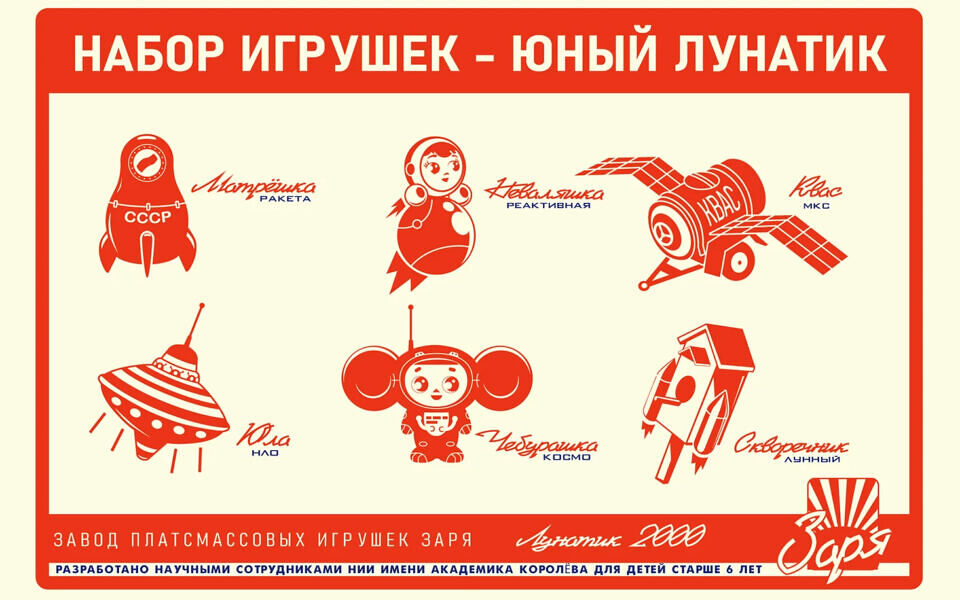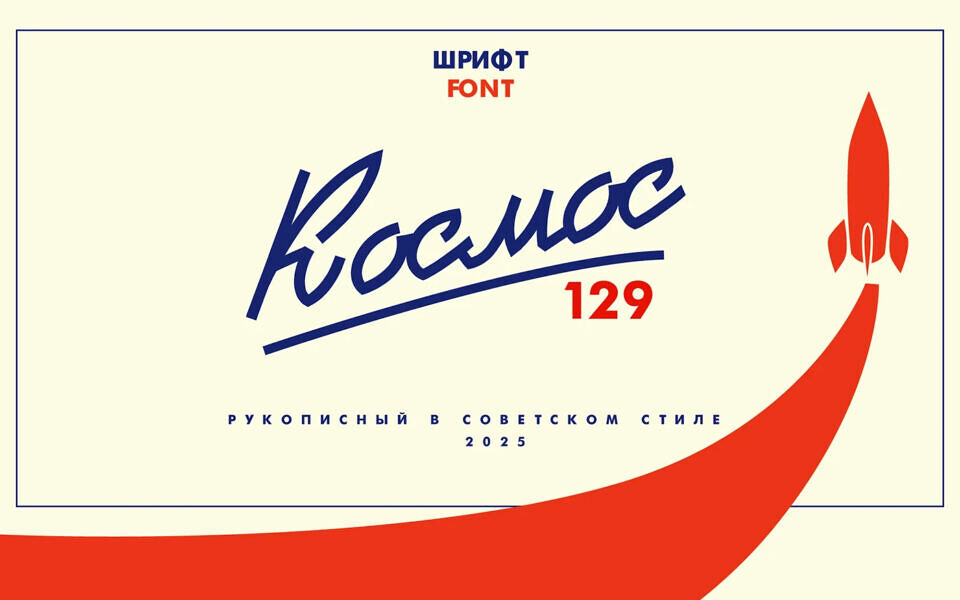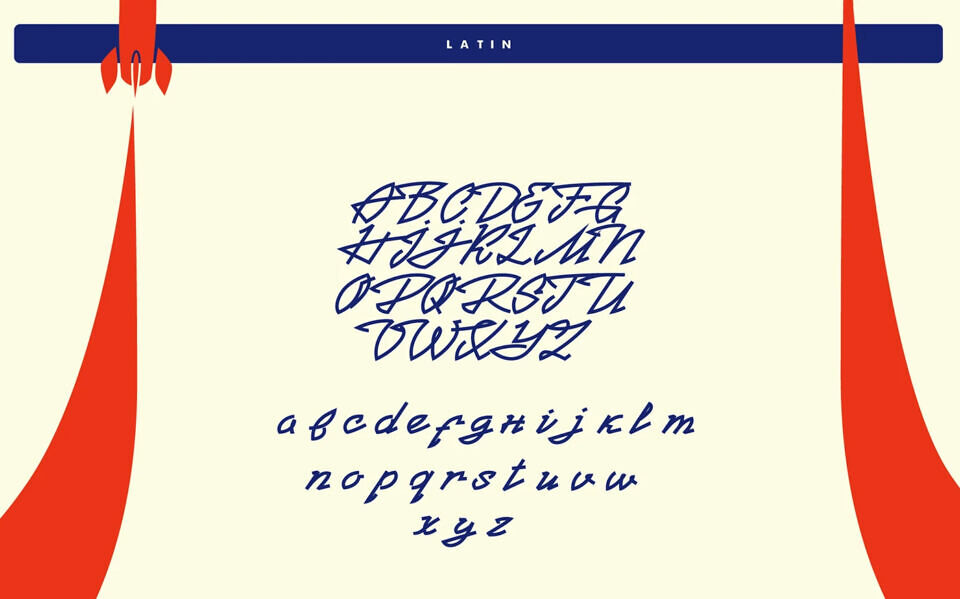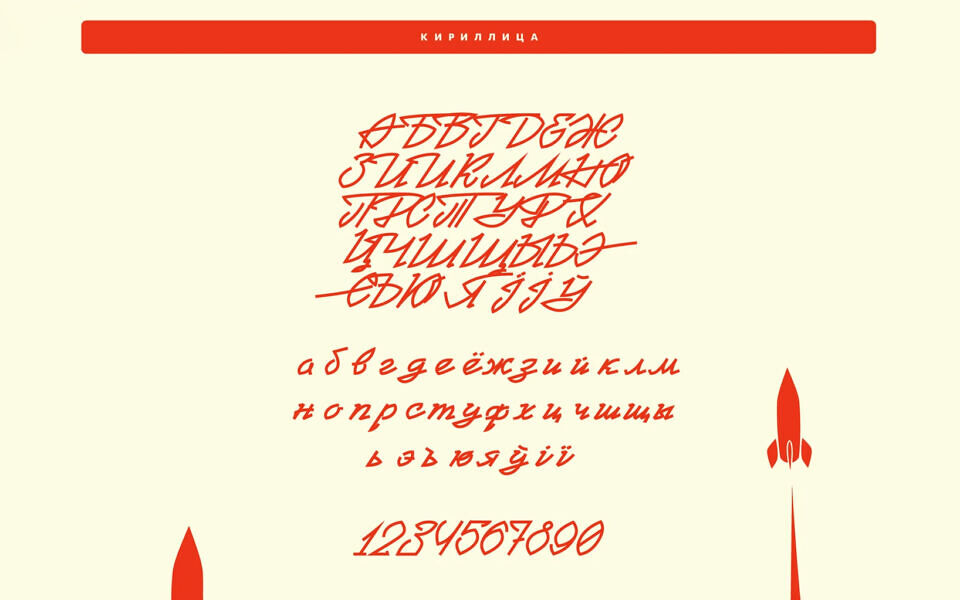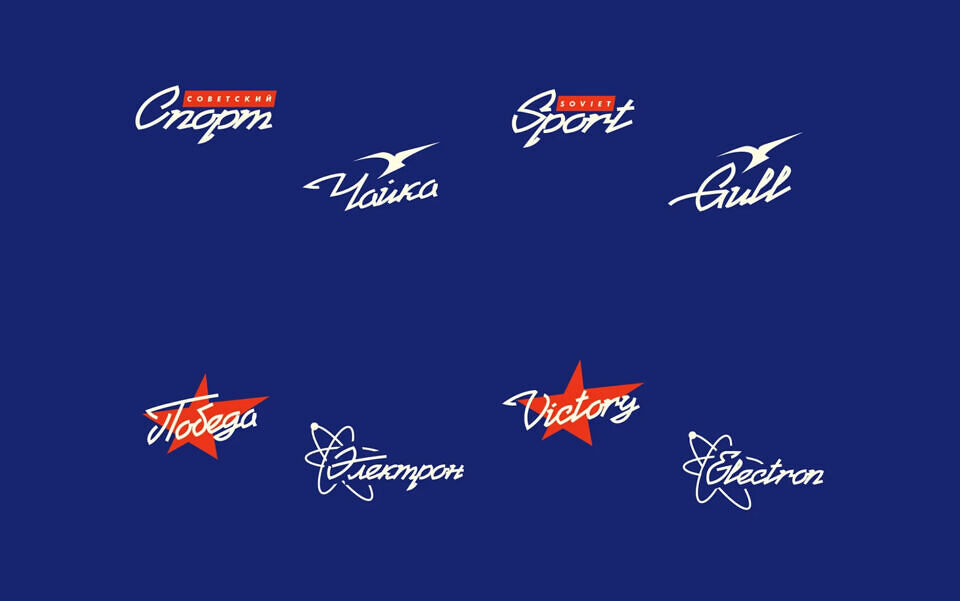
Kosmos 129 Font
Kosmos 129 is a handwritten font inspired by the aesthetics of the USSR from the 1960s to the 1980s. It was created by Vadim Bashlakov and supports Cyrillic and Latin alphabets, numbers, and special characters.
This versatile font is free for personal and commercial use and is ideal for headlines, posters, and text, adding a vintage, retro feel to any project.